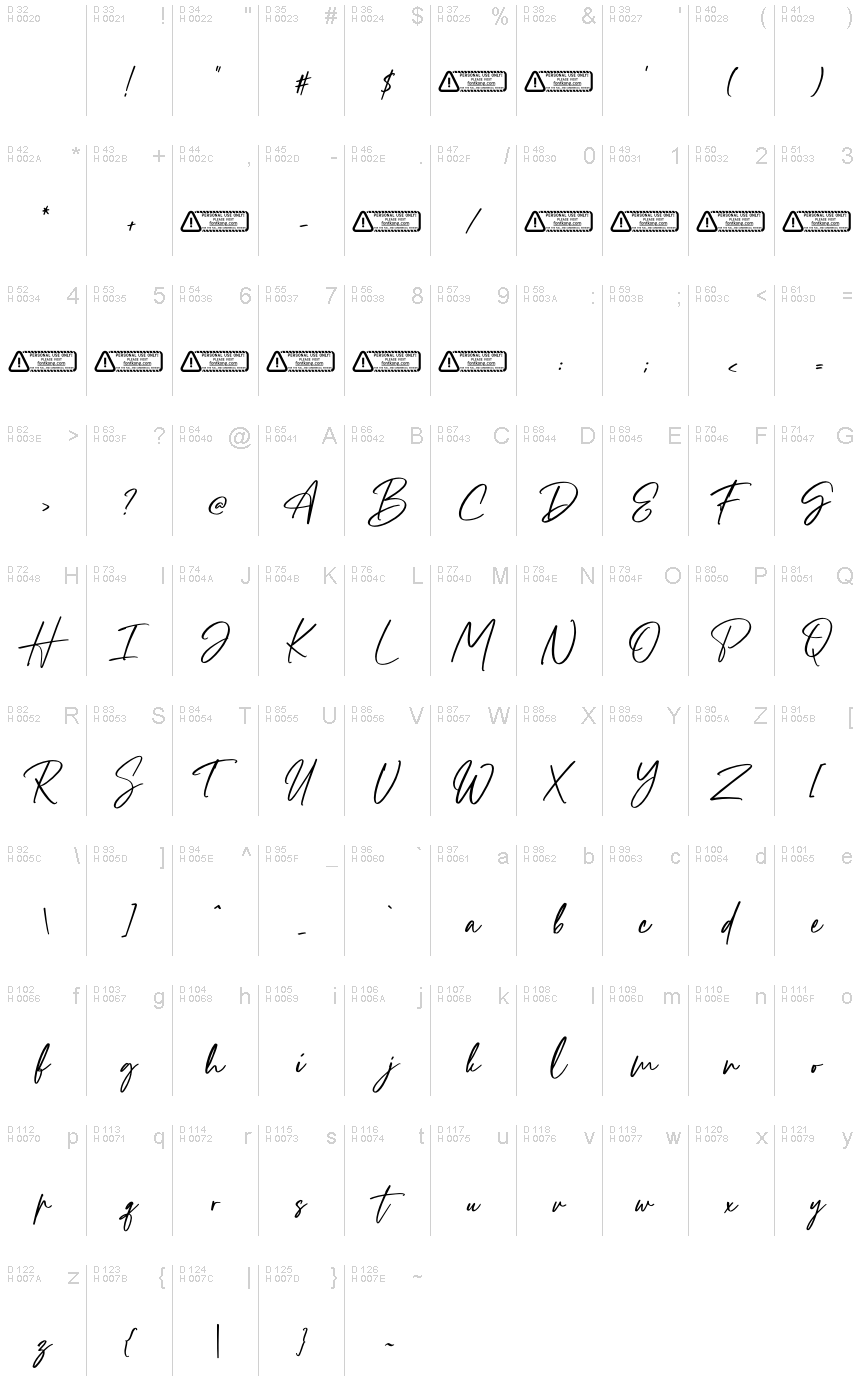
Bellatright font, designed by Kong Font, exudes elegance with its handwritten, signature style. Its light weight lends a delicate and artful touch, perfect for adding a personalized feel to your designs. The flowing strokes and smooth curves of Bellatright evoke a sense of grace and sophistication.
Ideal for branding projects, Bellatright elevates logos, invitations, and social media graphics with its stylish flair. As a free font available for download, it offers designers an accessible yet premium typeface option. Whether crafting luxurious wedding invitations or chic business cards, Bellatright seamlessly blends classic aesthetics with modern trends.